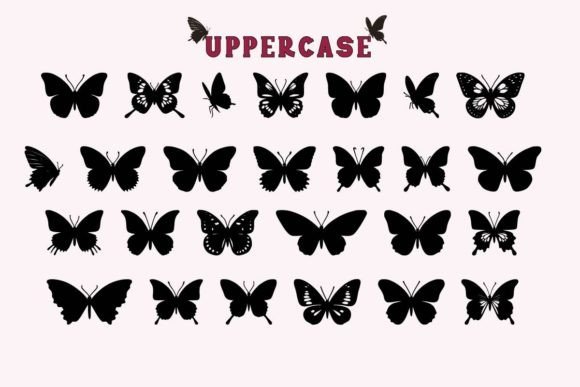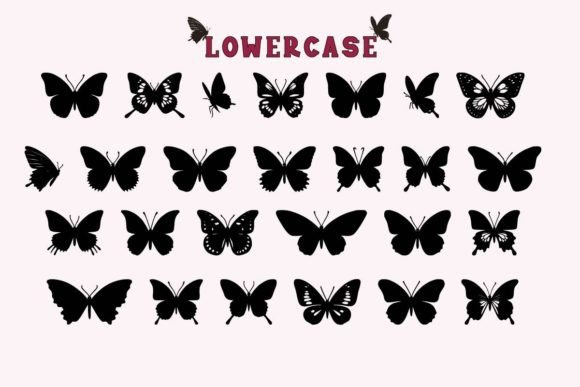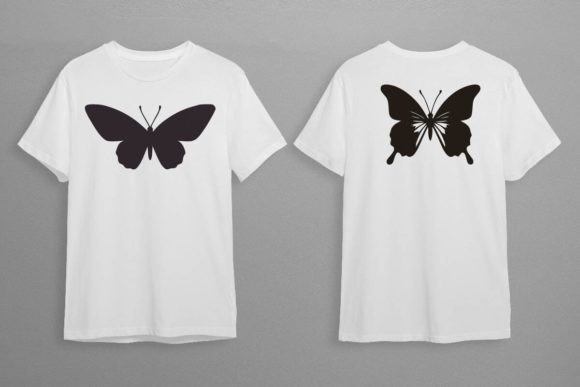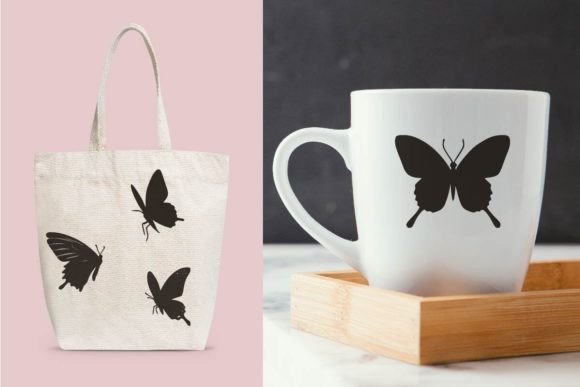
Introducing the Delightful Butterfly Font: Elevate Your Designs with Whimsy and Charm
Are you a designer, crafter, or creative enthusiast looking for a unique and captivating font to add a touch of elegance and playfulness to your projects? Look no further than the Butterfly Font, a lovely dingbats font that is perfect for a wide range of applications. From advertising posts and invitations to greeting cards, photo albums, and decorations, this charming font is sure to take your designs to the next level.
What is the Butterfly Font?
The Butterfly Font is a dingbats font, which means it’s a collection of symbols, icons, and illustrations rather than traditional alphabet letters. This font features a beautiful assortment of butterfly designs, each one meticulously crafted to bring a sense of wonder and joy to your projects. With its delicate lines, intricate details, and whimsical feel, the Butterfly Font is sure to captivate your audience and leave a lasting impression.
What Can I Use the Butterfly Font For?
The versatility of the Butterfly Font is one of its most appealing features. Here are just a few ideas to get you started:
• Advertising Posts: Add a touch of whimsy to your social media ads, flyers, or brochures with the Butterfly Font. Use it to highlight promotions, new products, or special offers.
• Invitations: Create beautiful and eye-catching invitations for weddings, birthday parties, baby showers, or other special occasions.
• Greeting Cards: Design stunning greeting cards for holidays, birthdays, or just because. The Butterfly Font is sure to make your cards stand out.
• Photo Albums: Add a personal touch to your photo albums or scrapbooking projects with the Butterfly Font. Use it to label photos, create captions, or add decorative elements.
• Decorations: Use the Butterfly Font to create stunning decorations for parties, events, or everyday decor. Print out the butterfly designs and hang them on walls, windows, or across tables.
• Craft Decoration: The Butterfly Font is perfect for crafters who love to create handmade decorations, such as paper flowers, garlands, or other DIY projects.
Why Choose the Butterfly Font?
With so many fonts available, why choose the Butterfly Font? Here are just a few reasons:
• Unique and Eye-Catching: The Butterfly Font is a one-of-a-kind font that is sure to grab attention and make your designs stand out.
• Versatile: As mentioned earlier, the Butterfly Font can be used for a wide range of projects, from advertising to decorations.
• Elegant and Whimsical: The font’s delicate lines and intricate details give it a sense of elegance and whimsy, making it perfect for a variety of design styles.